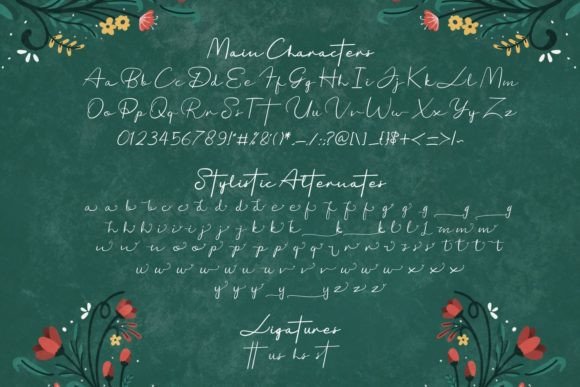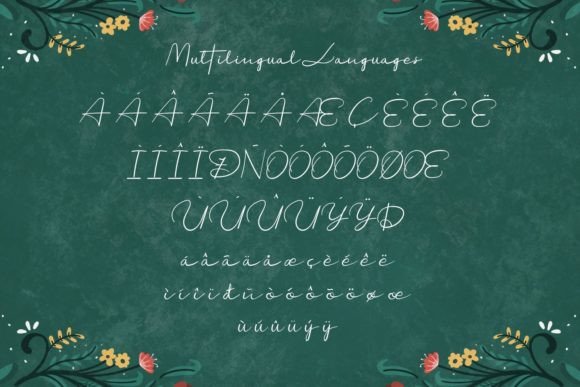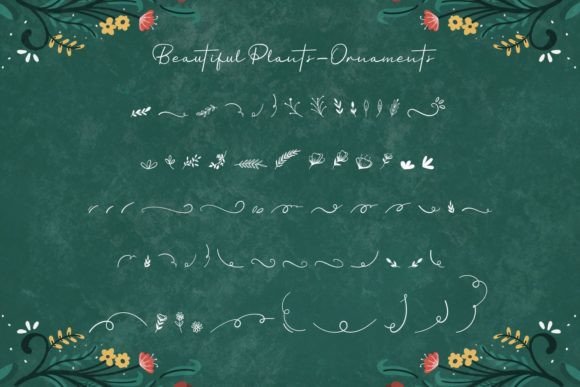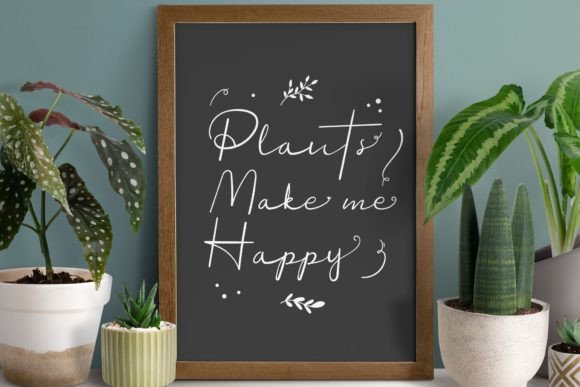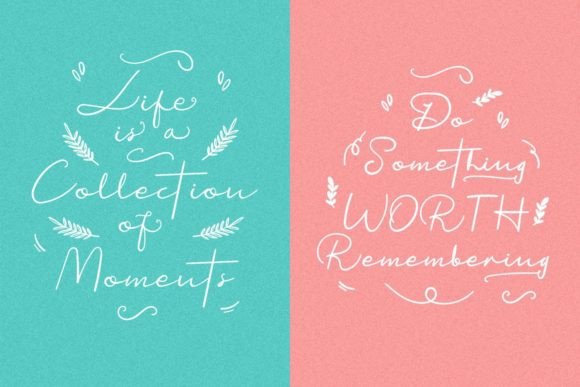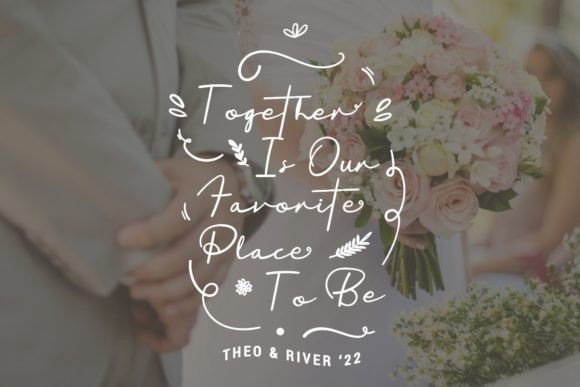
Unleashing the Beauty of Handwritten Scripts
As I sat in my studio, surrounded by blank paper and scattered paint swatches, I couldn’t help but feel a surge of creativity wash over me. The blank canvas was calling my name, begging to be filled with something beautiful. And then, it hit me – the perfect script to bring my latest project to life. Beautiful Plants Font was the answer to my prayers, a stunning handwritten calligraphy font that added a touch of elegance to any design.
Beautiful Plants Font is a versatile script that can be used in a variety of stationery, from letters and quotes to wedding invitations. Its floral dingbats add an extra layer of whimsy, making it the perfect choice for designers looking to add a touch of personality to their work. And with its PUA encoding, accessing all of the glyphs and swashes is a breeze, making it a valuable tool for any designer looking to elevate their designs.
Beautiful Plants Font Key Features
• Font Family: Beautiful Plants Font is a high-quality, unique font family designed specifically for botanical and nature-related content.
• Unique Characteristics: The font features intricate, hand-drawn illustrations of plants and flowers, adding a touch of elegance and sophistication to any design.
Beautiful Plants Font Review
First off, I have to say that I was immediately drawn to the whimsical feel of the Beautiful Plants Font. ✨ The organic, hand-drawn style is perfect for adding a touch of natural charm to any design project. I particularly love the way the font flows, with each letter connected in a way that feels effortless and spontaneous.
Another standout feature of the Beautiful Plants Font is its versatility. ✨ I’ve used it for everything from branding and packaging to digital graphics and editorial design, and it always looks great. The font is also surprisingly legible, even at smaller sizes, which is a must for any designer.
• ⚠️ Limited character set: While the font includes a range of letters and punctuation marks, it’s not a complete character set, which can be a limitation for more complex design projects.
• ⚠️ Not suitable for body text: Due to its decorative nature, the Beautiful Plants Font is best used for headlines and titles, rather than body text.
Overall, I’m really impressed with the Beautiful Plants Font. It’s a unique and eye-catching choice that can add a lot of visual interest to a design. While it may have some limitations, I think it’s a great addition to any designer’s toolkit.
Use the Beautiful Plants Font for garden-themed designs, nature-inspired graphics, and outdoor-related projects.
Combine it with floral patterns, greenery, and other natural elements to create visually appealing designs.
Experiment with different font sizes and styles to achieve the desired look.
Use the Beautiful Plants Font for:
Invitations, greeting cards, and party decorations for garden-themed events.
Nature-inspired logos, business cards, and marketing materials.
Outdoor-related products, such as seed packets, plant labels, and gardening guides.